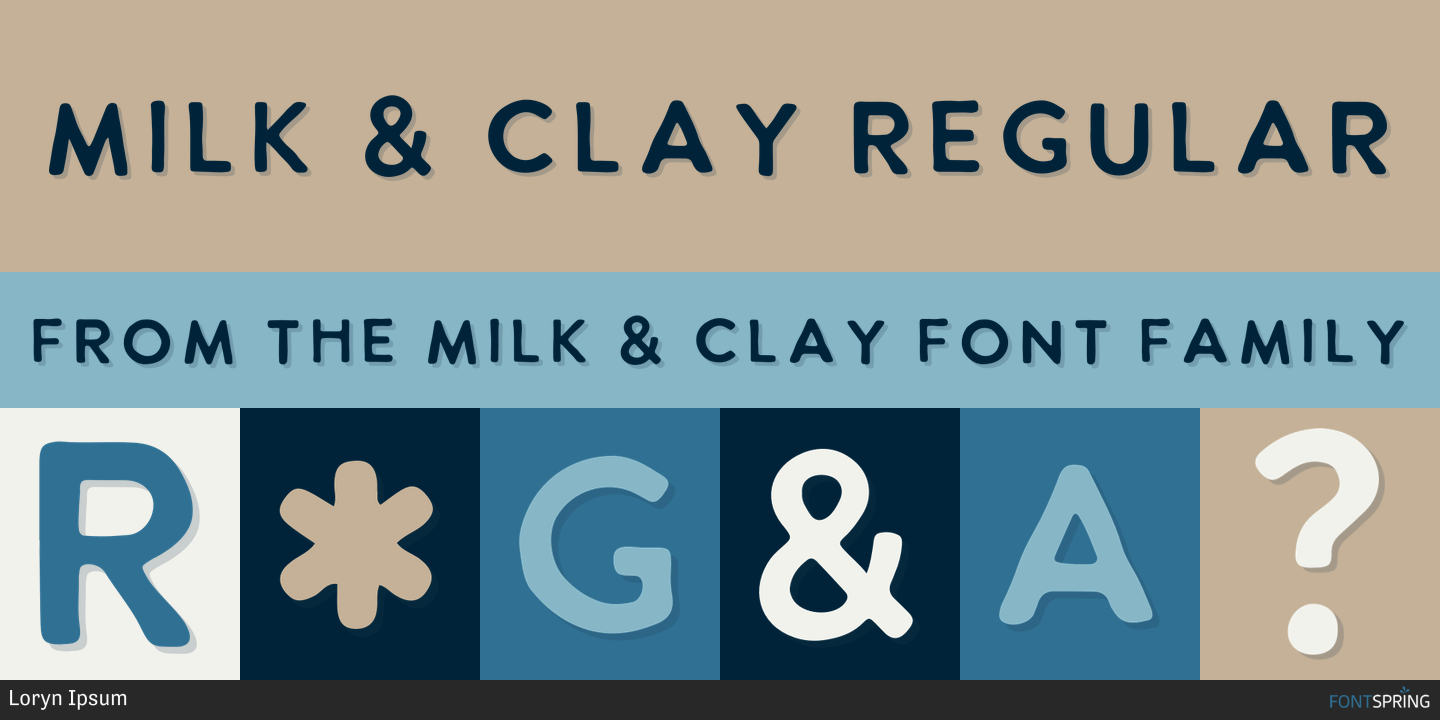
Milk And Clay Font
Milk And Clay Font - This font was inspired by a friend who is. Perfect for a variety of creative. Milk & clay | handwritten sans serif fontmeet milk & clay, the font that started it all. Introducing milk & clay, a beautifully handwritten sans serif font that exudes charm and authenticity. Milk & clay | handwritten sans serif font. Meet milk & clay, the font that started it all. Discover the captivating allure of milk and clay, a beautifully distressed font design by the talented loryn ipsum. This font was inspired by a friend who is a ceramists.
This font was inspired by a friend who is a ceramists. Perfect for a variety of creative. Milk & clay | handwritten sans serif fontmeet milk & clay, the font that started it all. Discover the captivating allure of milk and clay, a beautifully distressed font design by the talented loryn ipsum. Milk & clay | handwritten sans serif font. Introducing milk & clay, a beautifully handwritten sans serif font that exudes charm and authenticity. Meet milk & clay, the font that started it all. This font was inspired by a friend who is.
Introducing milk & clay, a beautifully handwritten sans serif font that exudes charm and authenticity. This font was inspired by a friend who is. Meet milk & clay, the font that started it all. This font was inspired by a friend who is a ceramists. Milk & clay | handwritten sans serif font. Milk & clay | handwritten sans serif fontmeet milk & clay, the font that started it all. Discover the captivating allure of milk and clay, a beautifully distressed font design by the talented loryn ipsum. Perfect for a variety of creative.
This font was inspired by a friend who is a ceramists. Meet milk & clay, the font that started it all. Milk & clay | handwritten sans serif font. Perfect for a variety of creative. Introducing milk & clay, a beautifully handwritten sans serif font that exudes charm and authenticity.
Meet milk & clay, the font that started it all. Introducing milk & clay, a beautifully handwritten sans serif font that exudes charm and authenticity. Perfect for a variety of creative. This font was inspired by a friend who is. This font was inspired by a friend who is a ceramists.
Discover the captivating allure of milk and clay, a beautifully distressed font design by the talented loryn ipsum. Perfect for a variety of creative. Milk & clay | handwritten sans serif font. This font was inspired by a friend who is. Milk & clay | handwritten sans serif fontmeet milk & clay, the font that started it all.
Milk & clay | handwritten sans serif fontmeet milk & clay, the font that started it all. Discover the captivating allure of milk and clay, a beautifully distressed font design by the talented loryn ipsum. Perfect for a variety of creative. Milk & clay | handwritten sans serif font. This font was inspired by a friend who is.
Introducing milk & clay, a beautifully handwritten sans serif font that exudes charm and authenticity. Perfect for a variety of creative. This font was inspired by a friend who is. Milk & clay | handwritten sans serif font. This font was inspired by a friend who is a ceramists.
Introducing milk & clay, a beautifully handwritten sans serif font that exudes charm and authenticity. Perfect for a variety of creative. Milk & clay | handwritten sans serif font. This font was inspired by a friend who is a ceramists. Discover the captivating allure of milk and clay, a beautifully distressed font design by the talented loryn ipsum.
Milk & clay | handwritten sans serif font. This font was inspired by a friend who is a ceramists. Meet milk & clay, the font that started it all. Perfect for a variety of creative. Discover the captivating allure of milk and clay, a beautifully distressed font design by the talented loryn ipsum.
Perfect for a variety of creative. Discover the captivating allure of milk and clay, a beautifully distressed font design by the talented loryn ipsum. Introducing milk & clay, a beautifully handwritten sans serif font that exudes charm and authenticity. This font was inspired by a friend who is. This font was inspired by a friend who is a ceramists.
Milk & clay | handwritten sans serif font. Discover the captivating allure of milk and clay, a beautifully distressed font design by the talented loryn ipsum. This font was inspired by a friend who is a ceramists. Introducing milk & clay, a beautifully handwritten sans serif font that exudes charm and authenticity. Milk & clay | handwritten sans serif fontmeet.
This Font Was Inspired By A Friend Who Is A Ceramists.
Meet milk & clay, the font that started it all. This font was inspired by a friend who is. Discover the captivating allure of milk and clay, a beautifully distressed font design by the talented loryn ipsum. Perfect for a variety of creative.
Milk & Clay | Handwritten Sans Serif Fontmeet Milk & Clay, The Font That Started It All.
Introducing milk & clay, a beautifully handwritten sans serif font that exudes charm and authenticity. Milk & clay | handwritten sans serif font.